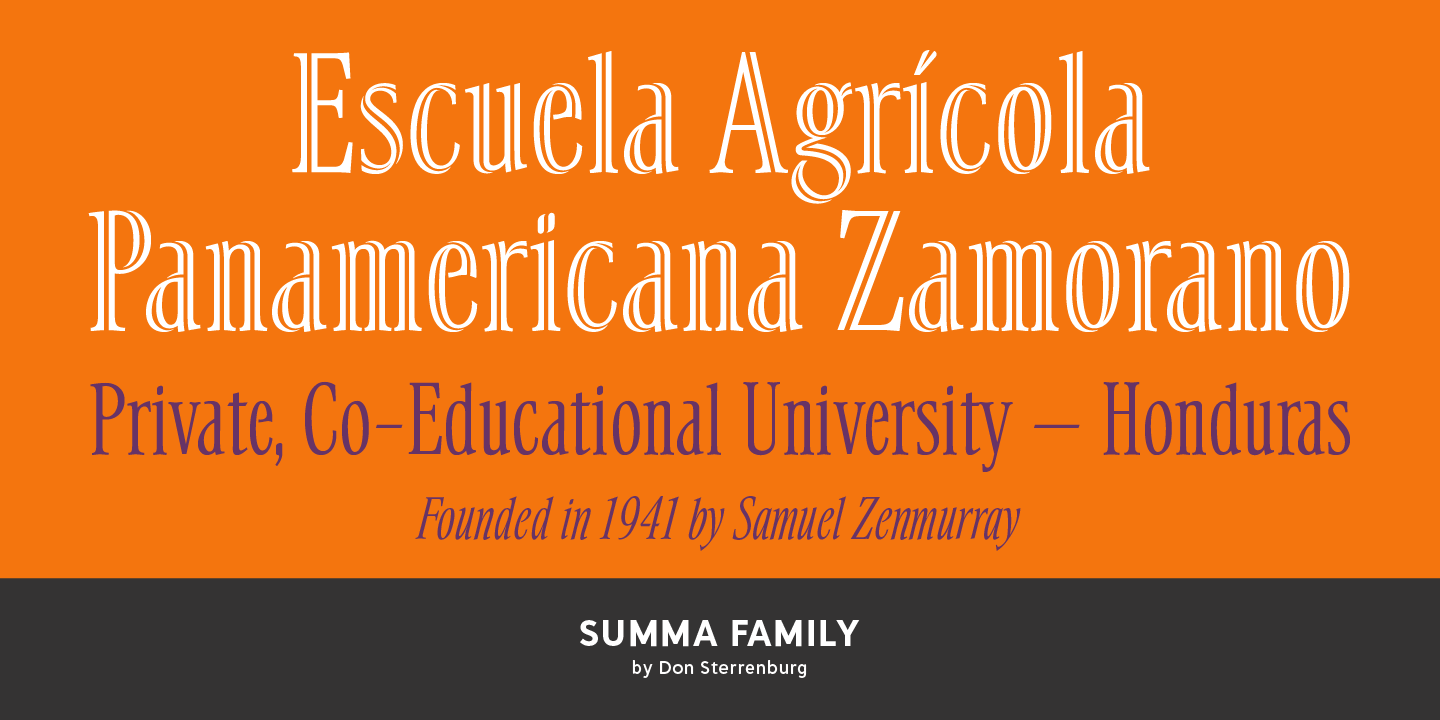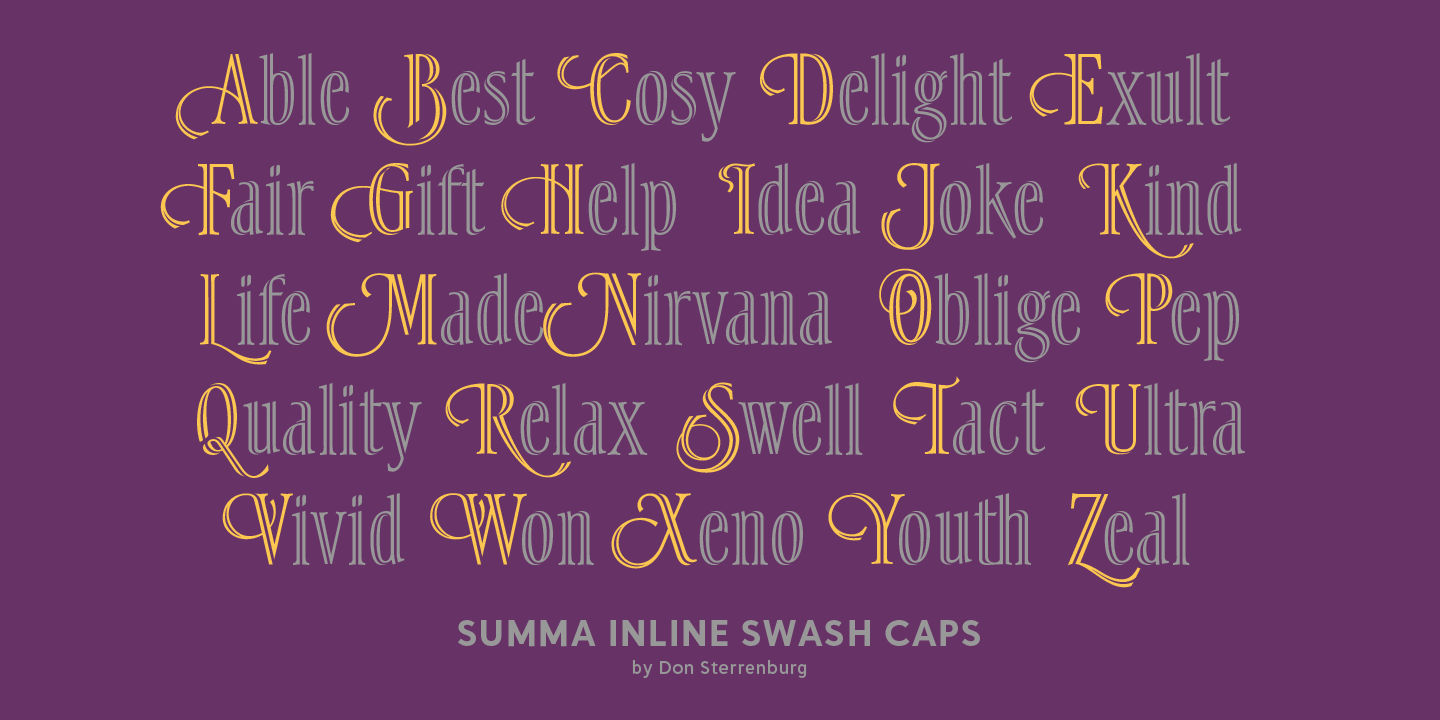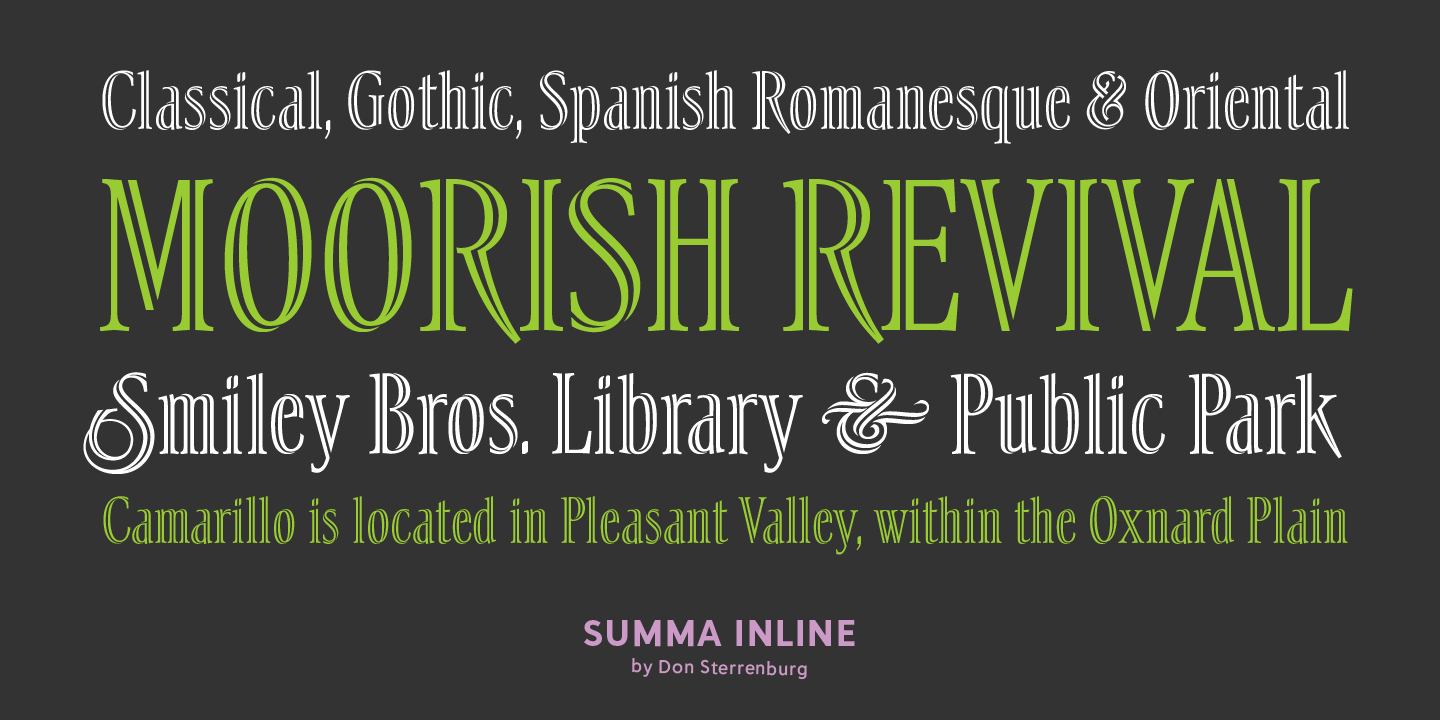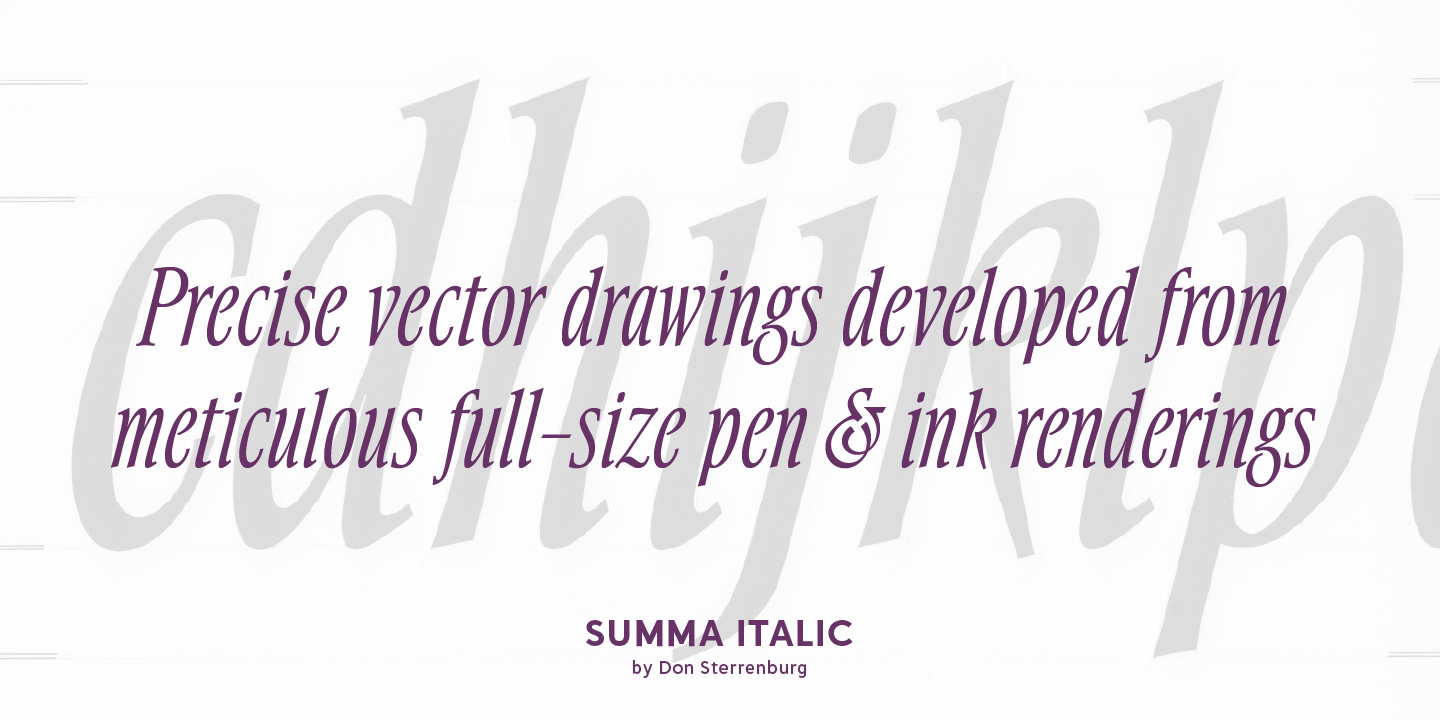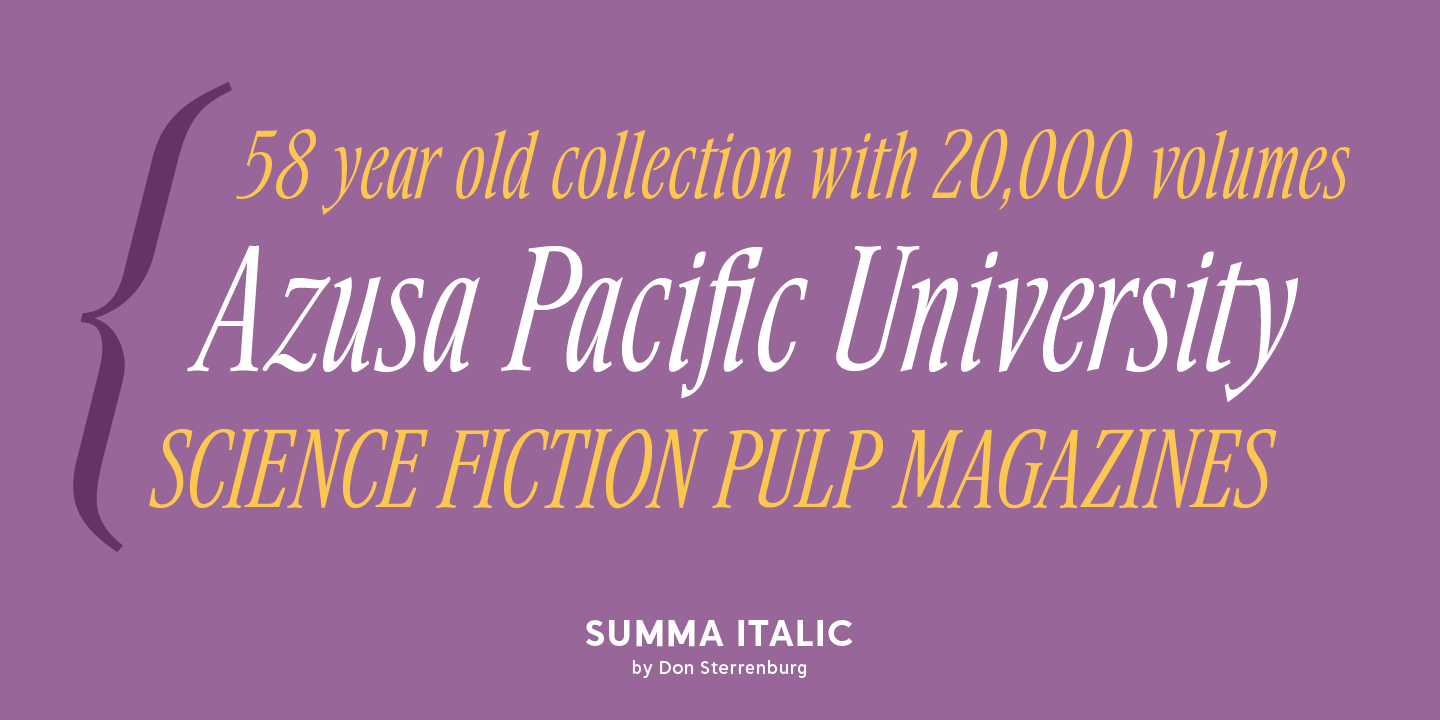
About Summa
After a career in the design industry and as an educator, Don Sterrenburg brought his wealth of knowledge and experience to bear in creating Summa. Sterrenburg is truly a master in the art of pen and ink. The resulting typeface is a testament to the…